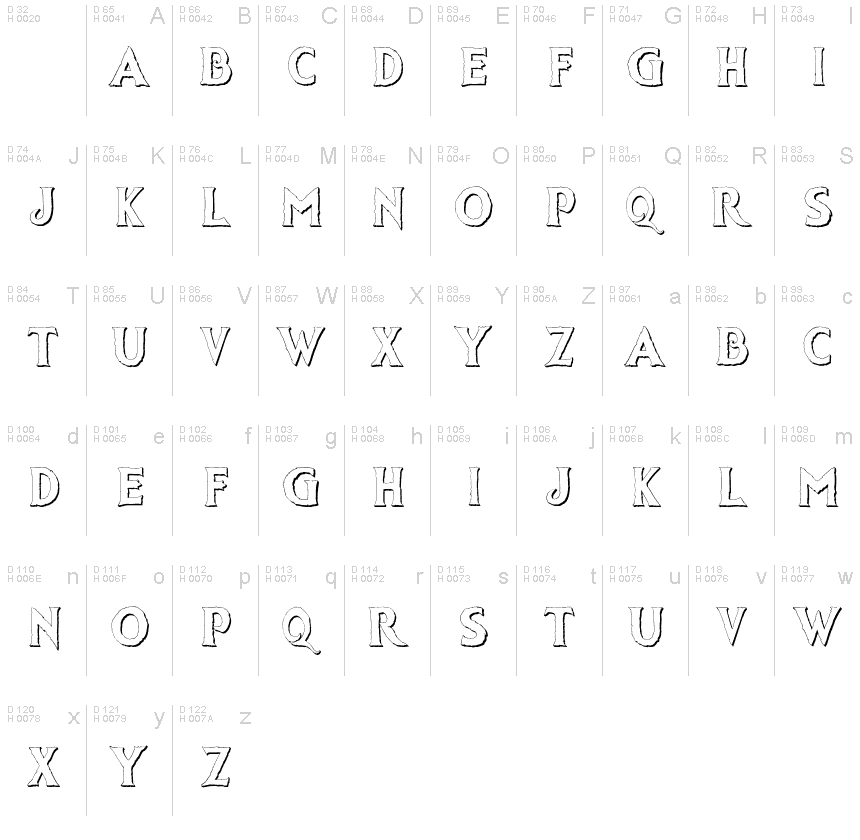
Qatar Regular
Qatar, the latest addition to Vladimir Nikolic's collection of display fonts, boasts a unique eroded style that sets it apart from the rest. Its semi-bold weight adds a touch of boldness without overpowering your design. This font is perfect for various creative projects such as posters, book covers, and magazine layouts. The eroded texture of Qatar gives off an edgy vibe that can also be used for music album covers or tattoo designs. With its versatility and unique style, Qatar is definitely worth adding to your font library.